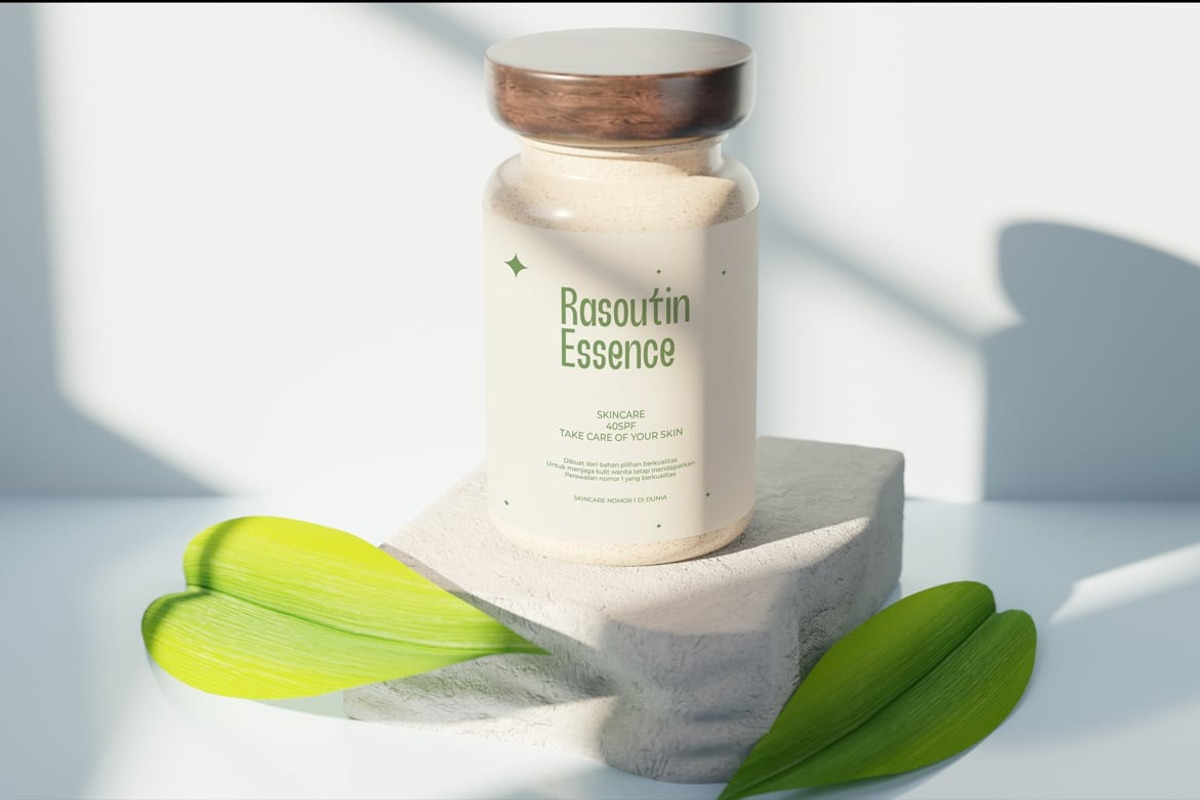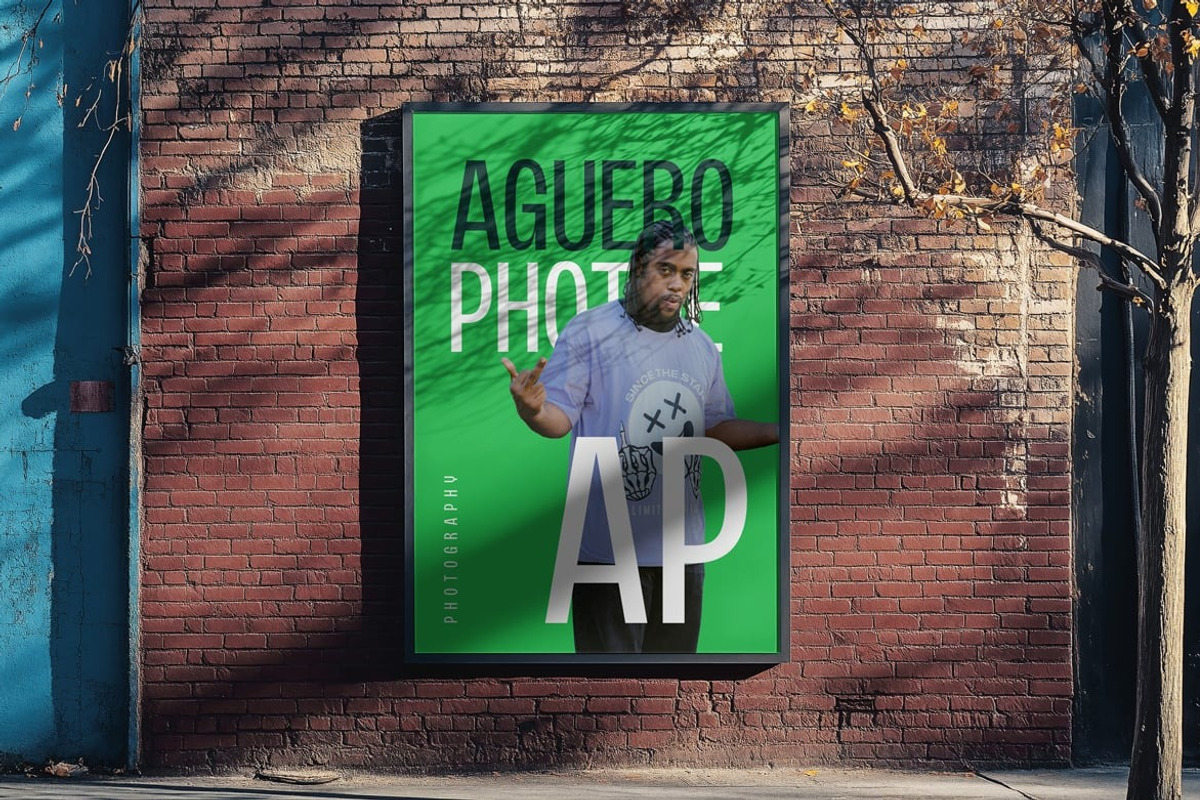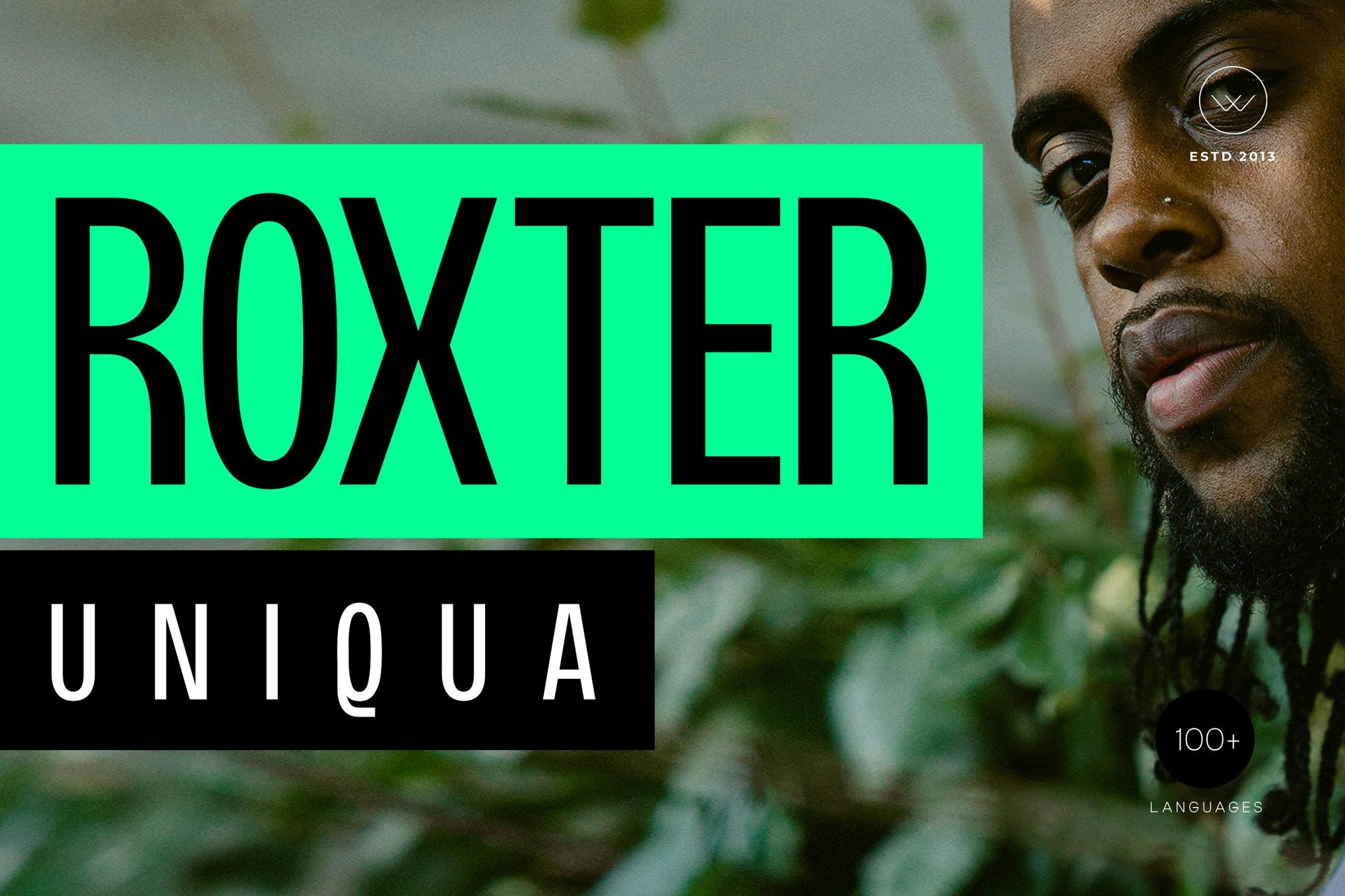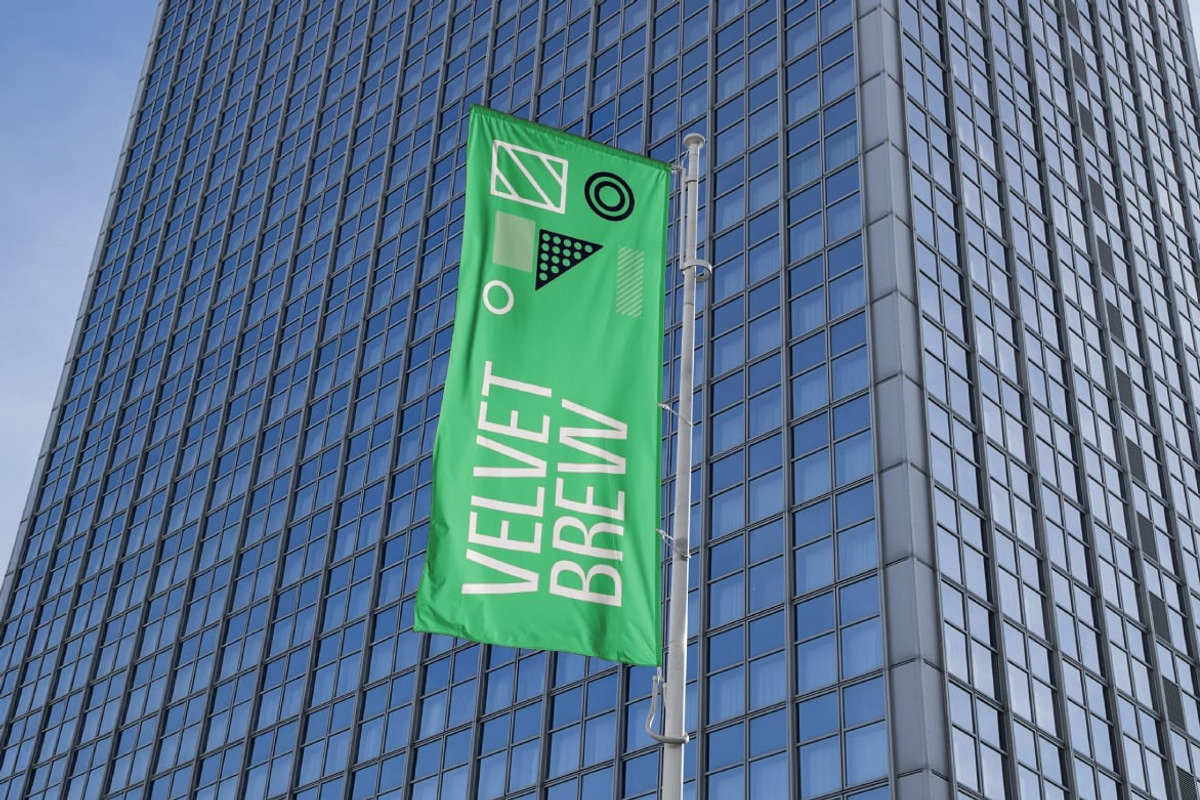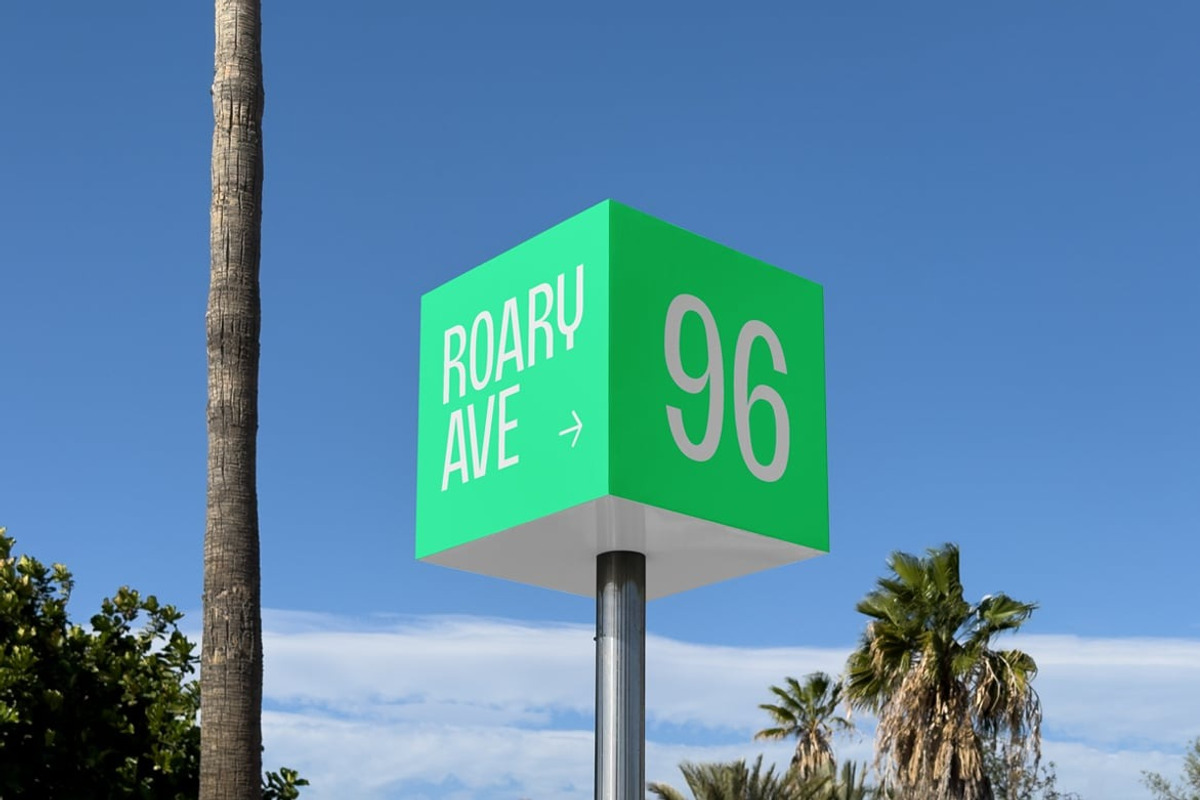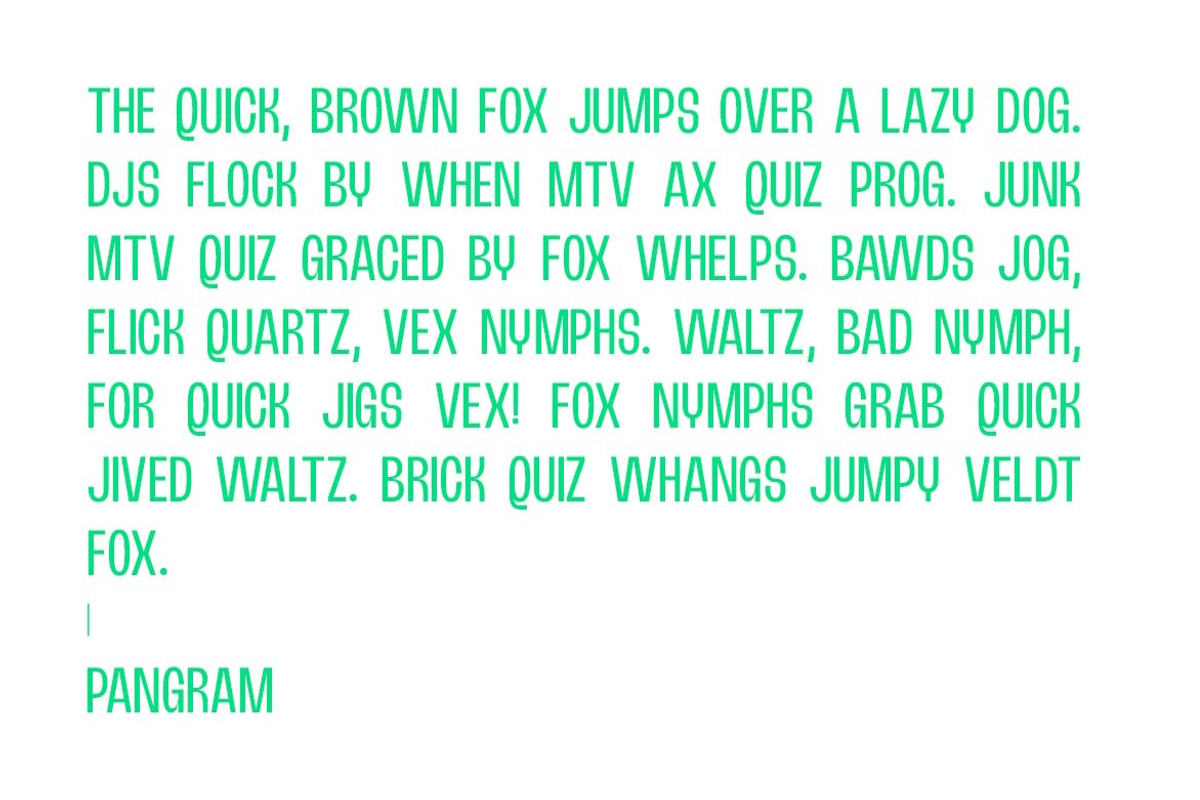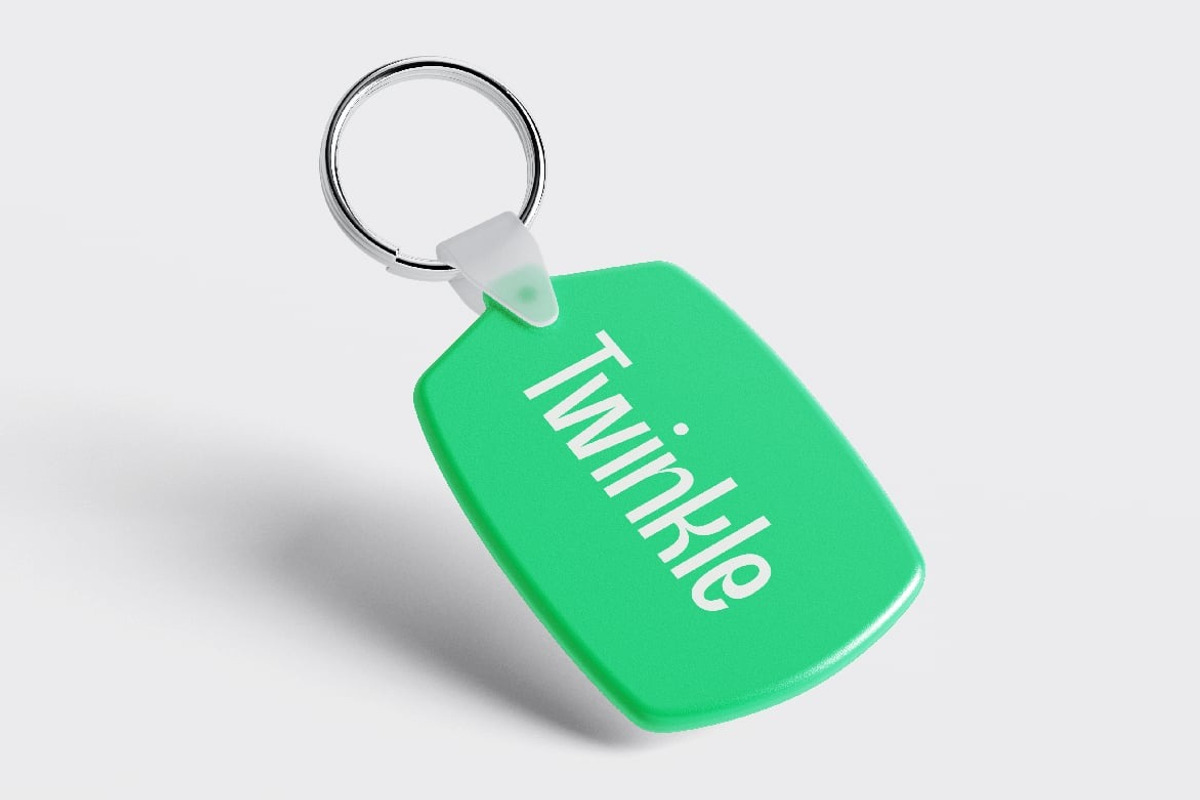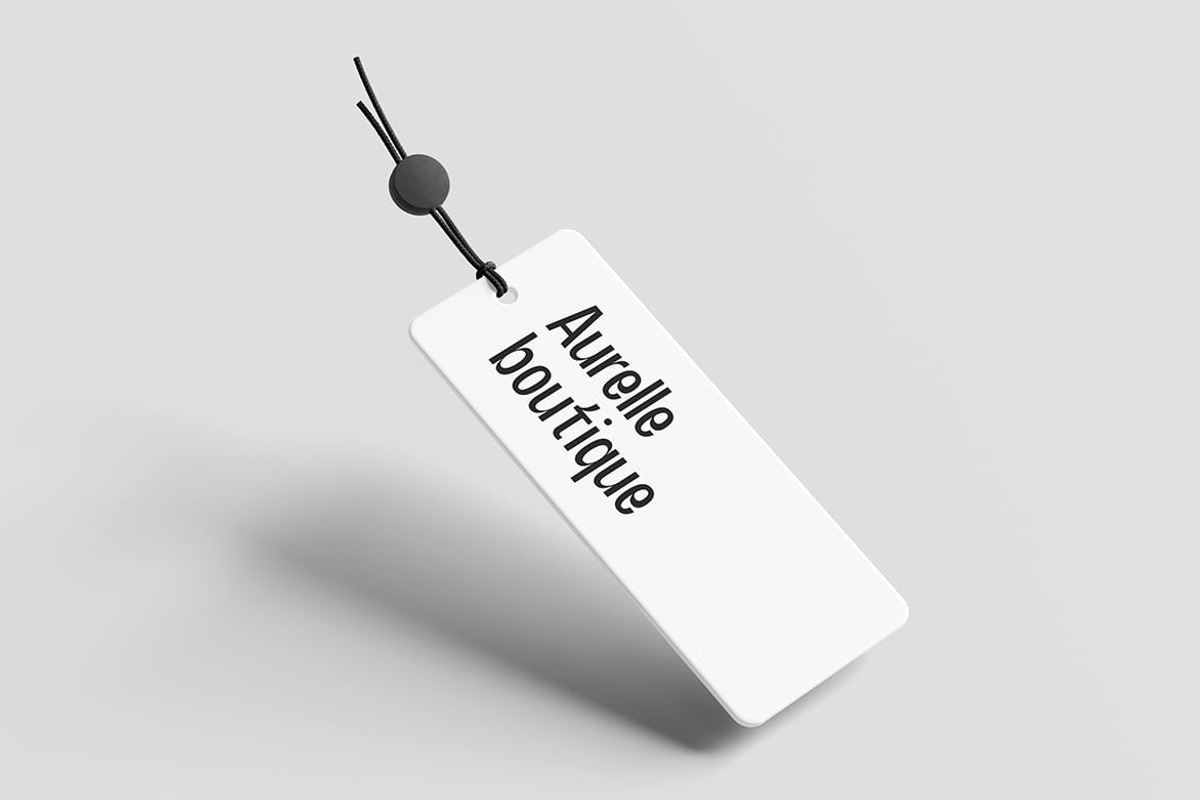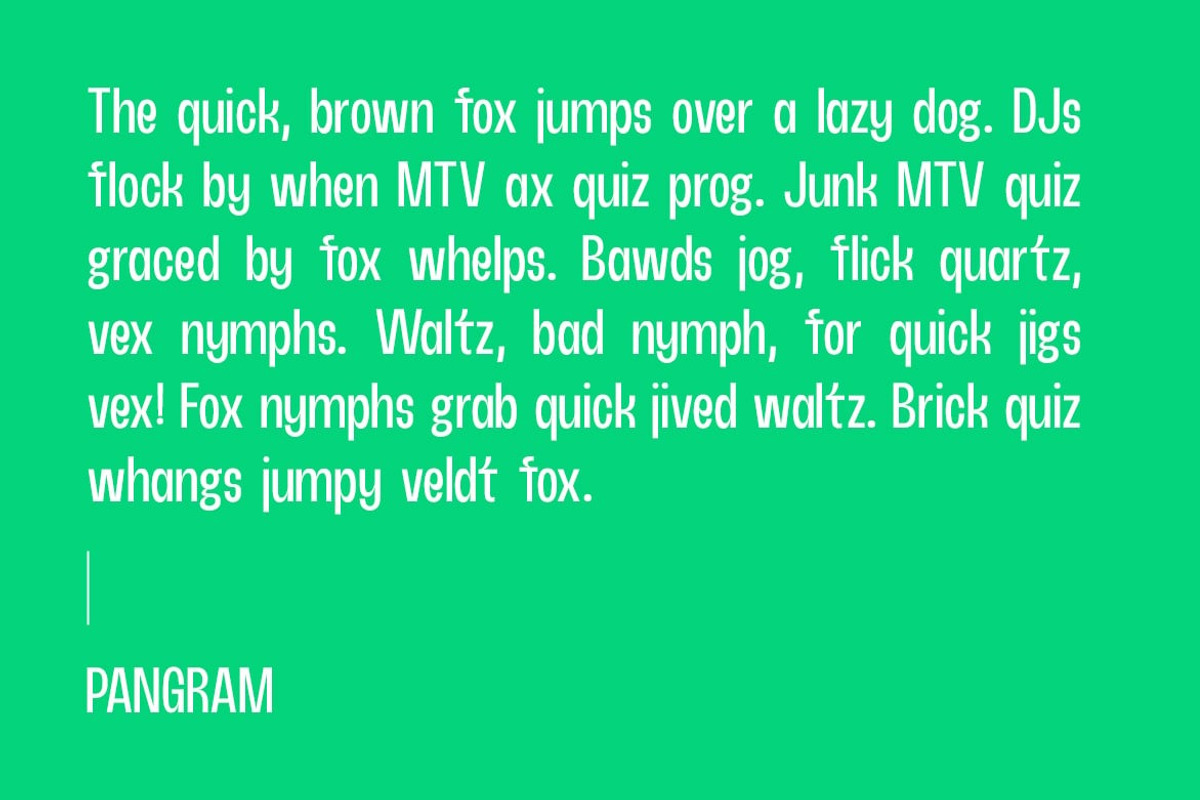
Roxter – Display Sans-Serif Font
Roxter is a unique display typeface designed for maximum impact. With its tall forms, tight spacing, and clean structure, Roxter brings strength and clarity to posters, branding, packaging, album covers, and modern digital layouts.
With support for 100+ languages and 200+ glyphs, Roxter is ready for global use across both print and screen. A confident choice for designers who need sharp, modern, and space-efficient type.